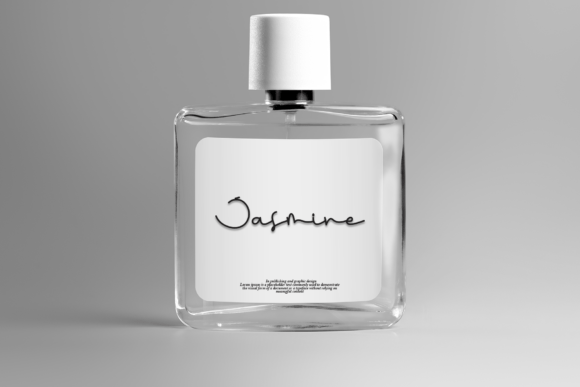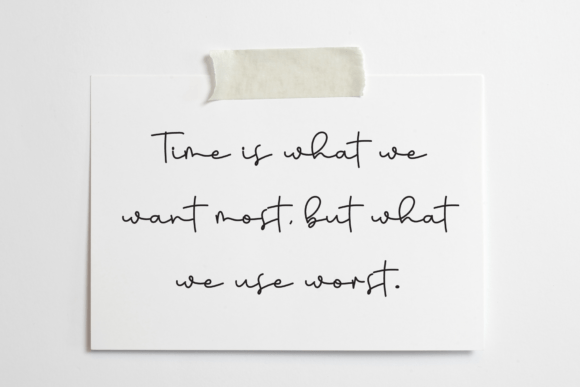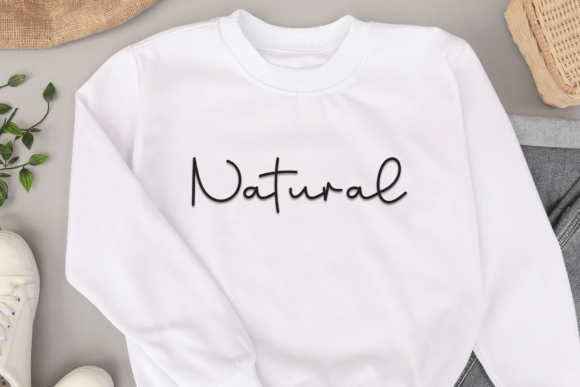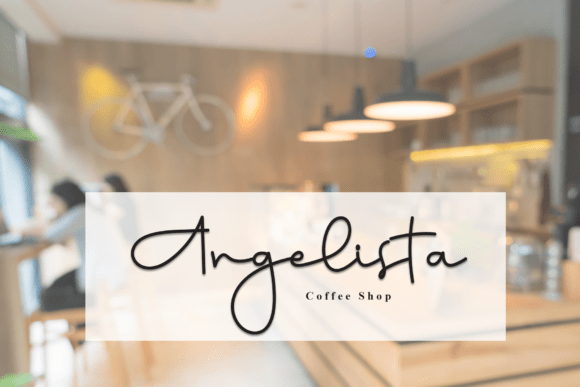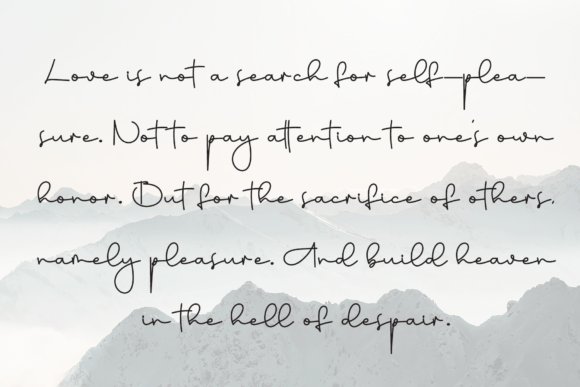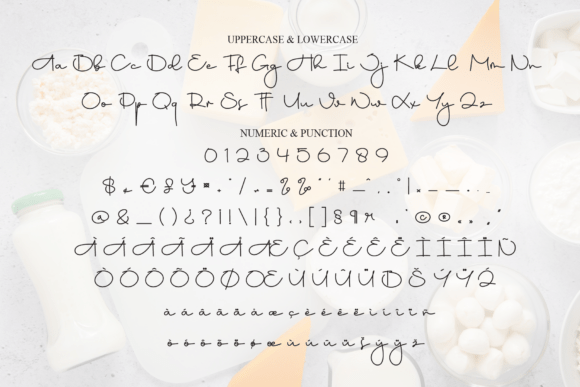
Dairy Font: Elevate Your Designs with Fresh Elegance and Delicate Charm
In the world of typography, fonts play a crucial role in conveying the tone and aesthetic of a design. For designers and crafters seeking a typeface that exudes elegance, charm, and a sense of renewal, Dairy Font is an exceptional choice. This stylish handwritten script font is perfect for creating beautiful invitations, branding materials, and seasonal designs that require a touch of sophistication and whimsy.
The Essence of Dairy Font
Dairy Font is a meticulously crafted typeface that embodies the essence of fresh elegance and delicate charm. Its flowing strokes and graceful curves are designed to evoke a sense of renewal, making it an ideal choice for designers looking to add a soft, personal touch to their projects. Whether you’re working on a wedding invitation, a brand identity, or a seasonal greeting card, Dairy Font is sure to elevate your design to new heights.
Key Features of Dairy Font
- Handwritten Script Style: Dairy Font boasts a beautiful, handwritten script style that adds a touch of warmth and personality to any design.
- Flowing Strokes and Curves: The font’s flowing strokes and curves create a sense of movement and fluidity, making it perfect for designs that require a sense of elegance and sophistication.
- Renewal and Elegance: Dairy Font’s unique design elements evoke a sense of renewal and freshness, making it an excellent choice for seasonal designs, invitations, and branding materials.
- Soft and Personal Touch: The font’s delicate charm and soft texture add a personal touch to any project, making it perfect for designers looking to create a sense of connection with their audience.
Uses of Dairy Font
Dairy Font is a versatile typeface that can be used in a variety of design applications, including:
- Invitations: Create beautiful wedding invitations, birthday cards, and other celebratory designs with Dairy Font’s elegant and whimsical style.
- Branding: Use Dairy Font to develop a unique brand identity that exudes elegance, sophistication, and a touch of playfulness.
- Seasonal Designs: Add a touch of freshness and renewal to your seasonal designs, such as Christmas cards, Easter greetings, or summer-themed posters.
- Packaging Design: Use Dairy Font to create eye-catching packaging designs that stand out on store shelves and convey a sense of luxury and quality.
Tips for Using Dairy Font
To get the most out of Dairy Font, consider the following tips:
- Pair with Contrasting Fonts: Combine Dairy Font with contrasting fonts to create visual interest and hierarchy in your design.
- Experiment with Colors: Play with different color schemes to find the perfect match for your design and the tone you want to convey.
- Use for Headlines and Titles: Dairy Font is perfect for headlines and titles, where its elegant and whimsical style can shine.
Dairy Font is a stunning handwritten script font that offers a unique blend of elegance, charm, and renewal. Its flowing strokes and curves make it perfect for designers and crafters looking to add a soft, personal touch to their projects. With its versatility and range of applications, Dairy Font is an excellent addition to any designer’s toolkit. Whether you’re working on invitations, branding materials, or seasonal designs, Dairy Font is sure to elevate your work and leave a lasting impression on your audience.